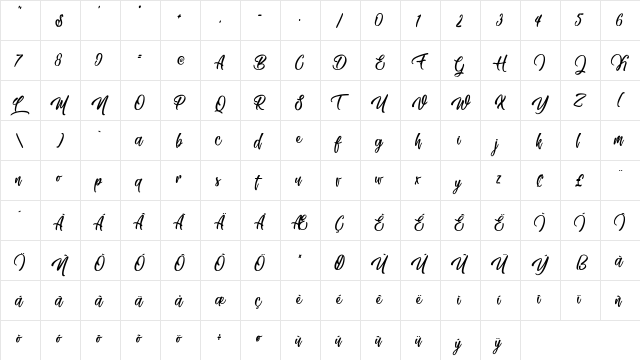
Skating Move Regular
| Foundry | Typhoon Type - Suthi Srisopha |
| Designer | Typhoon Type - Suthi Srisopha |
Design Context for Skating Move Typeface
Skating Move is a composed and adaptable typeface that performs quietly and consistently across a wide range of design contexts.